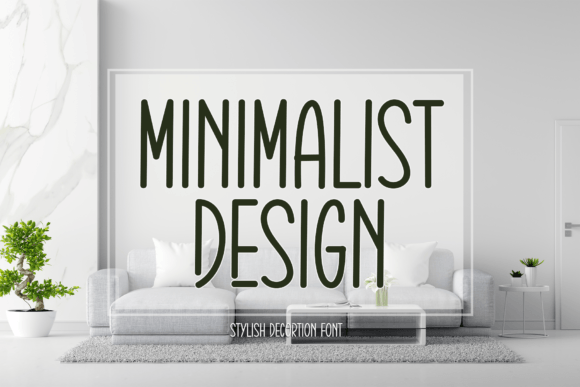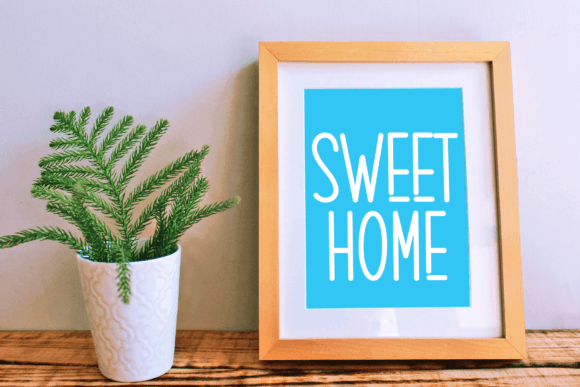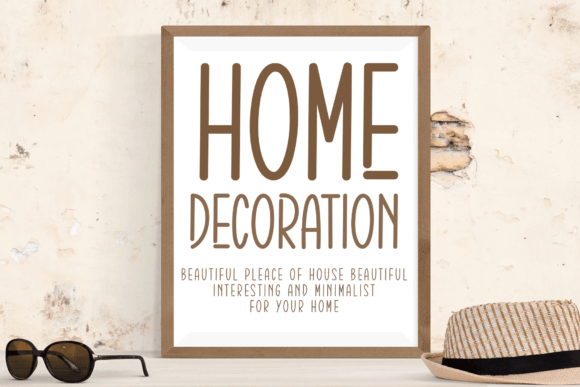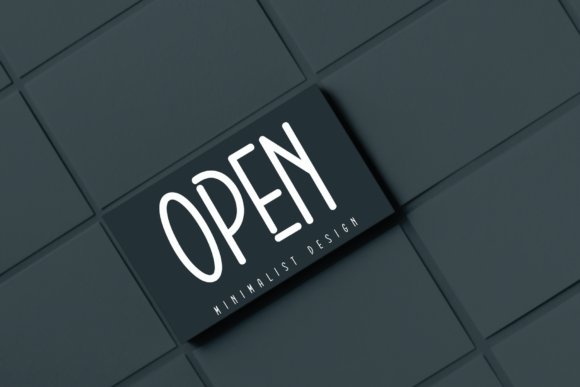
About Minimalist Design Font
“Minimalist Design” is a luxury handwritten font that captures attention with its elegant touch, making it a perfect choice for your favorite design projects. With an incredibly distinct and timeless style, this font offers a touch of sophistication that elevates your creative endeavors to new heights.
The font’s luxury and handwritten aesthetic make it versatile for a wide range of applications. Whether you’re working on branding, invitations, packaging, or any other design project, “Minimalist Design” brings a refined and stylish element to the forefront.
The distinct and timeless style of this font ensures that your designs stand out with a touch of class. Its clean lines and well-crafted characters make it suitable for creating spectacular designs that leave a lasting impression. Whether used in print or digital media, “Minimalist Design” adds a touch of elegance to your visual creations.
With its luxury appeal and handwritten charm, “Minimalist Design” becomes a design asset that enhances the beauty of your projects. The font’s versatility allows it to complement various design elements, making it a valuable addition to your creative toolkit.
Whether you’re crafting logos, invitations, or any other design piece, “Minimalist Design” invites you to fall in love with its unique style and use it to bring your creative visions to life. Let this font be the signature touch that transforms your projects into spectacular works of art.